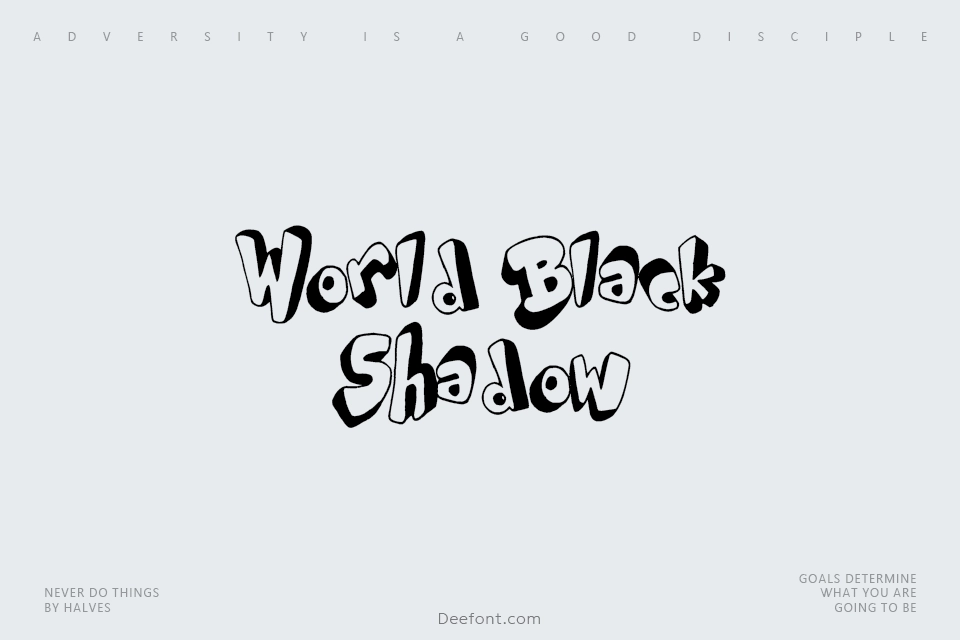
World Black Shadow Font
World Black Shadow is a playful and bold display font featuring a unique shadow effect that creates a three-dimensional appearance. The rounded, slightly irregular letters deliver a whimsical and dynamic feel, making it ideal for eye-catching headlines, posters, party invitations, and creative branding projects. With full uppercase and lowercase letters, numbers, and special characters, this decorative typeface excels in designs requiring personality and visual impact.